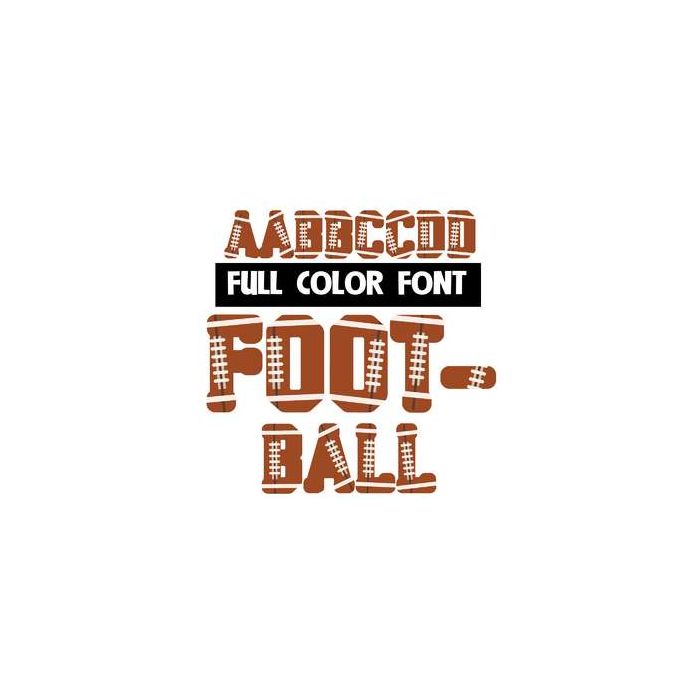
football color font
This full-color font looks like American Footballs. This font works best for titles, displays, posters and more. Please note color fonts will show as black in non compatible programs. This font type is compatible with Silhouette Studio.